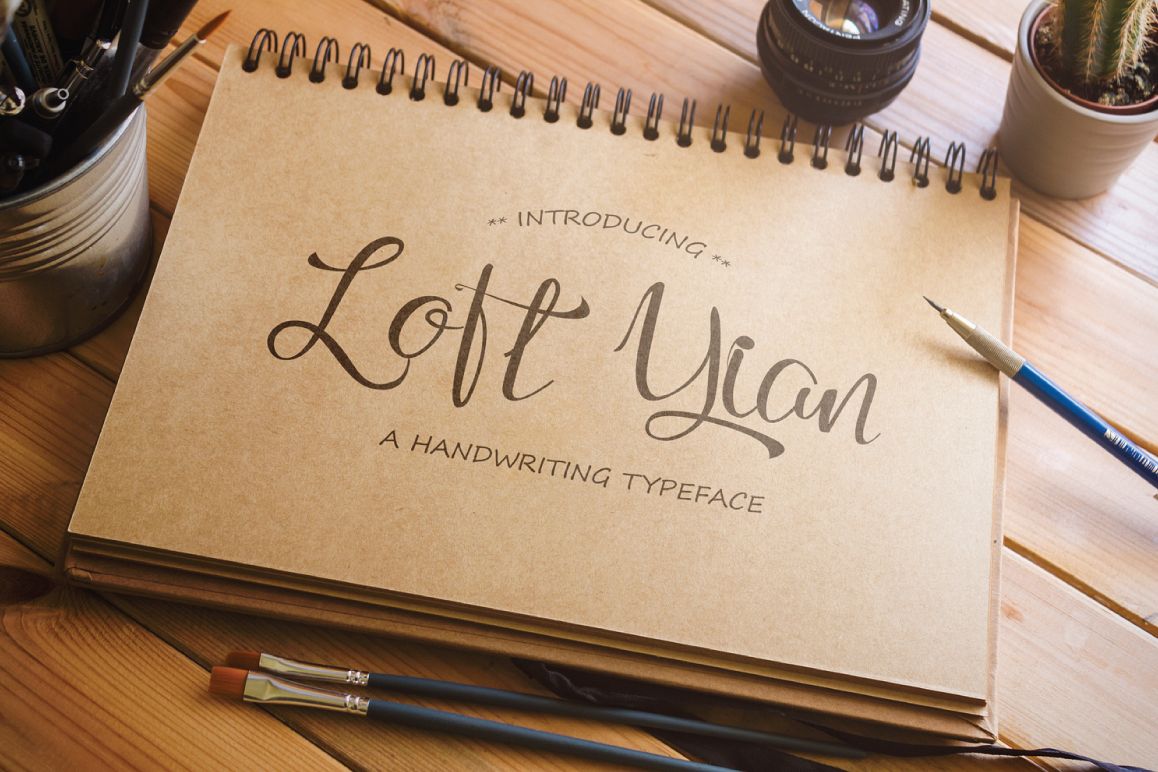
Loft Yian Script Typeface
Introducing "Loft Yian Handwriting Typeface" Can be used for various purposes namely headings, signatures, logos, wedding invitations, t-shirts, letterheads, signages, labels, news, posters, badges etc. Product Content: Loft Yian.otf Loft Yian.ttf Loft Yian Web Font (eot, svg, woff) Features: Uppercase Lowercase Numeral & Punctuations (Open Type Standard) Ligatures Use a program that supports OpenType features such as Adobe Illustrator CS, Adobe Indesign & CorelDraw X6-X7 to access the full features of this typeface. How-to pdf included in the package. Feel free to contact me for additional supports. NOTE: Personal and Commercial use are permitted